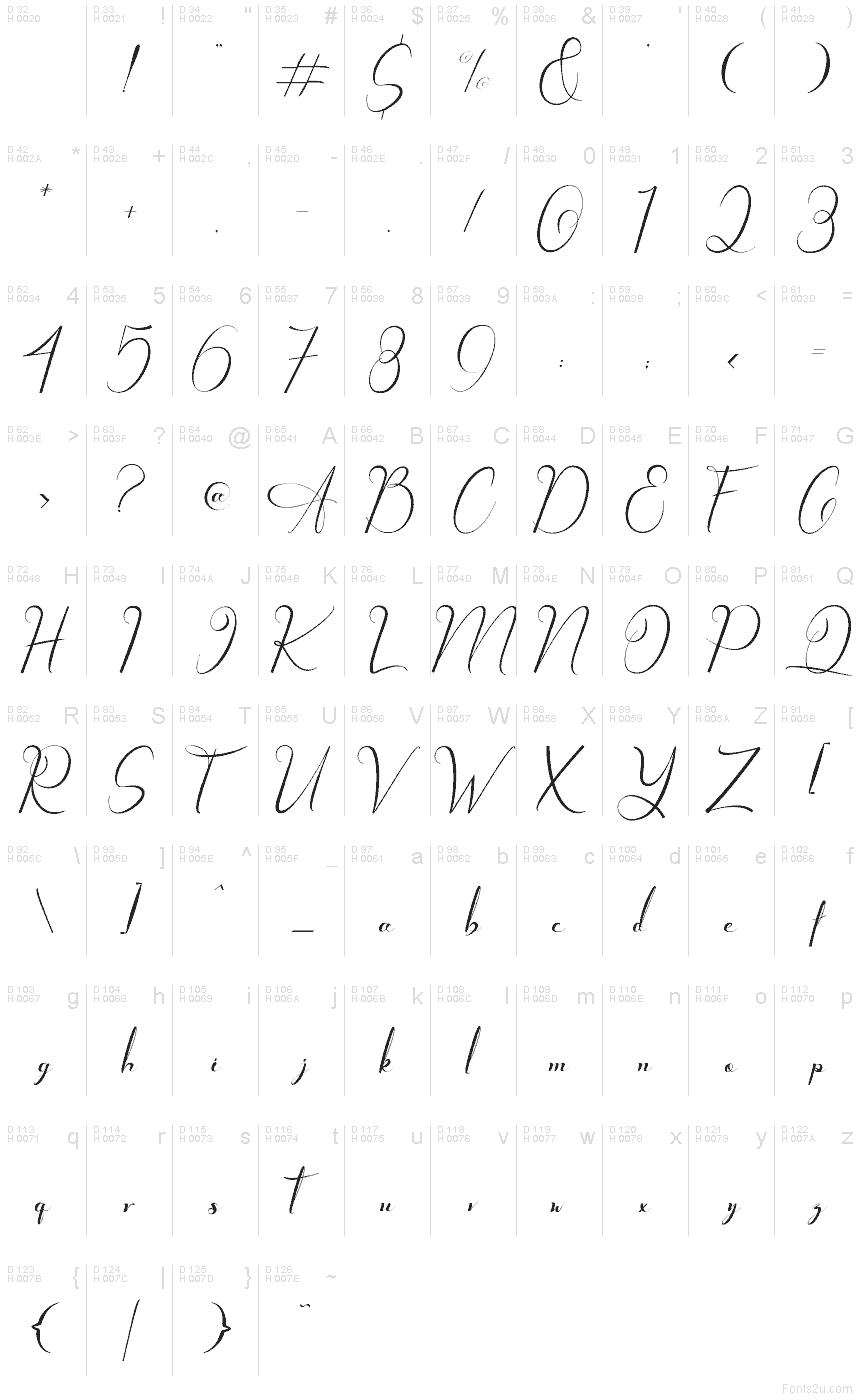
Chester Chesire Script
Chester Chesire Script font by PutraCetol Studio is a free handwritten script typeface. Its tall, looping letters and soft, inky pressure shifts give each word a breezy, romantic flow, like notes dashed with a fine brush pen. Slightly irregular rhythms keep it human and charming, while the generous slant and airy spacing make headlines feel light and effortless.
Using Chester Chesire Script, you’ll elevate wedding invitations, boutique logos, perfume or candle labels, quote graphics, and elegant stationery sets. This free font shines on social posts and packaging where a touch of whimsy meets polish. For balance, pair its flowing forms with a crisp geometric sans in small caps, and give the script a little extra tracking for breathy, upscale drama.